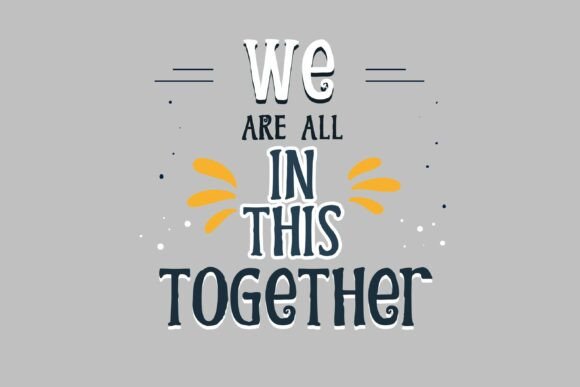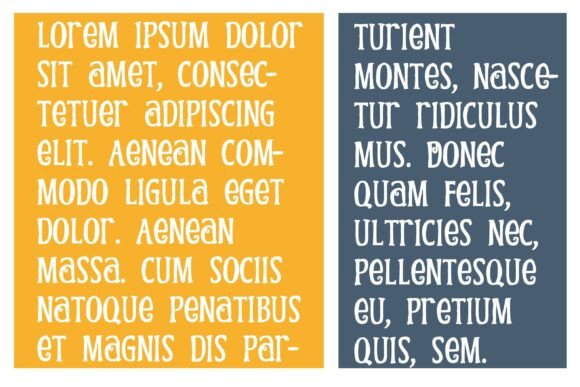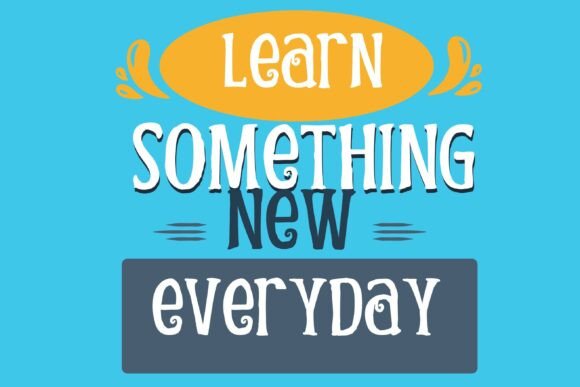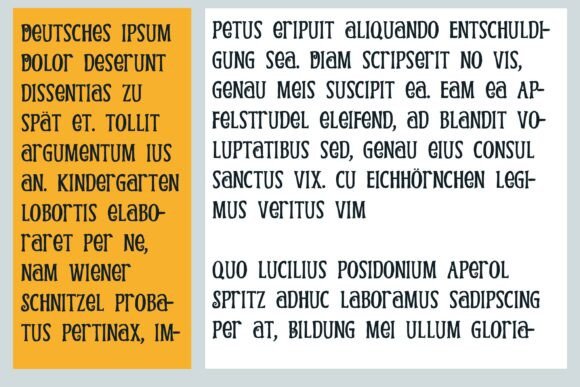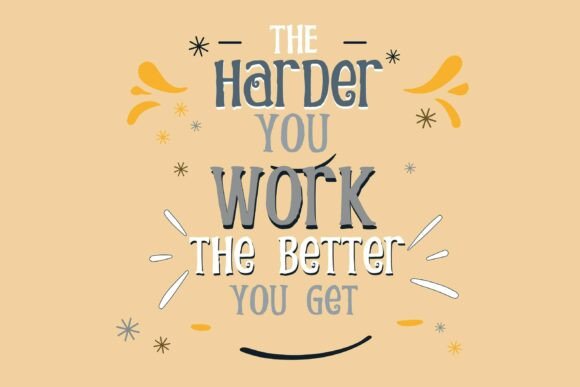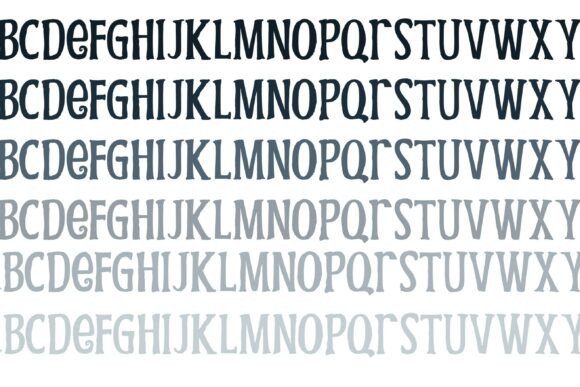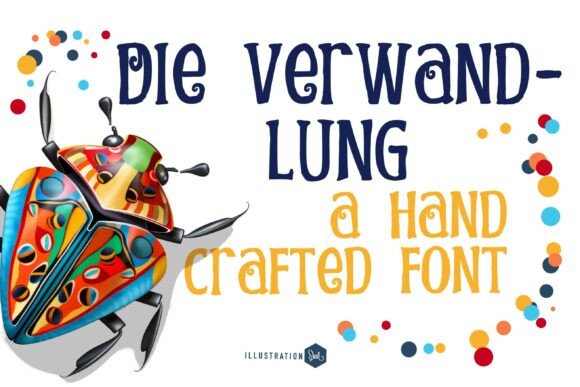
Discover the Whimsical Charm of Die Verwandlung Font
Step into a world of whimsical storytelling with Die Verwandlung, a uniquely hand-crafted font that balances classic book-title charm with a playful, organic twist. This extraordinary typeface is perfect for designers and crafters looking to add a touch of professional craftsmanship and legendary imaginative beauty to their visual identity.
A Unique Blend of Classic and Playful
Die Verwandlung font features tall, condensed letterforms with a rhythmic, slightly irregular baseline that evokes the artisanal quality of a woodblock print or custom literary illustration. This distinctive design makes it an ideal choice for quirky book covers, boutique editorial headers, artisanal packaging, and creative storytelling projects.
Hand-Crafted with Love and Care
Die Verwandlung is a true labor of love, hand-crafted with attention to detail and a passion for storytelling. Each letterform is carefully designed to deliver a sense of classic book-title charm, while the playful, organic twist adds a touch of whimsy and imagination. This font is perfect for designers and crafters who want to create visual identities that feel like an invitation to a curated adventure.
Die Verwandlung font is an excellent choice for designers and crafters who want to add a touch of elegance and sophistication to their projects. Whether you’re working on a book cover, editorial header, packaging, or creative storytelling project, this font delivers a sense of professional craftsmanship and legendary imaginative beauty.
Key Features of Die Verwandlung Font
- Tall, condensed letterforms: Die Verwandlung features tall, condensed letterforms that are perfect for creating visually appealing headlines and titles.
- Rhythmic, slightly irregular baseline: The rhythmic, slightly irregular baseline of Die Verwandlung evokes the artisanal quality of a woodblock print or custom literary illustration.
- Hand-crafted with love and care: Each letterform in Die Verwandlung is carefully hand-crafted with attention to detail and a passion for storytelling.
- Classic book-title charm with a playful twist: Die Verwandlung balances classic book-title charm with a playful, organic twist, making it perfect for designers and crafters who want to create unique and imaginative visual identities.
Use Die Verwandlung for:
- Quirky book covers: Die Verwandlung is perfect for creating eye-catching book covers that stand out from the crowd.
- Boutique editorial headers: Use Die Verwandlung to create elegant and sophisticated editorial headers that add a touch of whimsy to your content.
- Artisanal packaging: Die Verwandlung is ideal for creating unique and imaginative packaging that reflects your brand’s personality.
- Creative storytelling projects: This font is perfect for designers and crafters who want to create visual identities that feel like an invitation to a curated adventure.
Die Verwandlung font is a unique and extraordinary typeface that balances classic book-title charm with a playful, organic twist. With its tall, condensed letterforms, rhythmic baseline, and hand-crafted design, Die Verwandlung is perfect for designers and crafters who want to add a touch of professional craftsmanship and legendary imaginative beauty to their visual identity. Whether you’re working on a book cover, editorial header, packaging, or creative storytelling project, Die Verwandlung is an excellent choice for creating visual identities that feel like an invitation to a curated adventure.